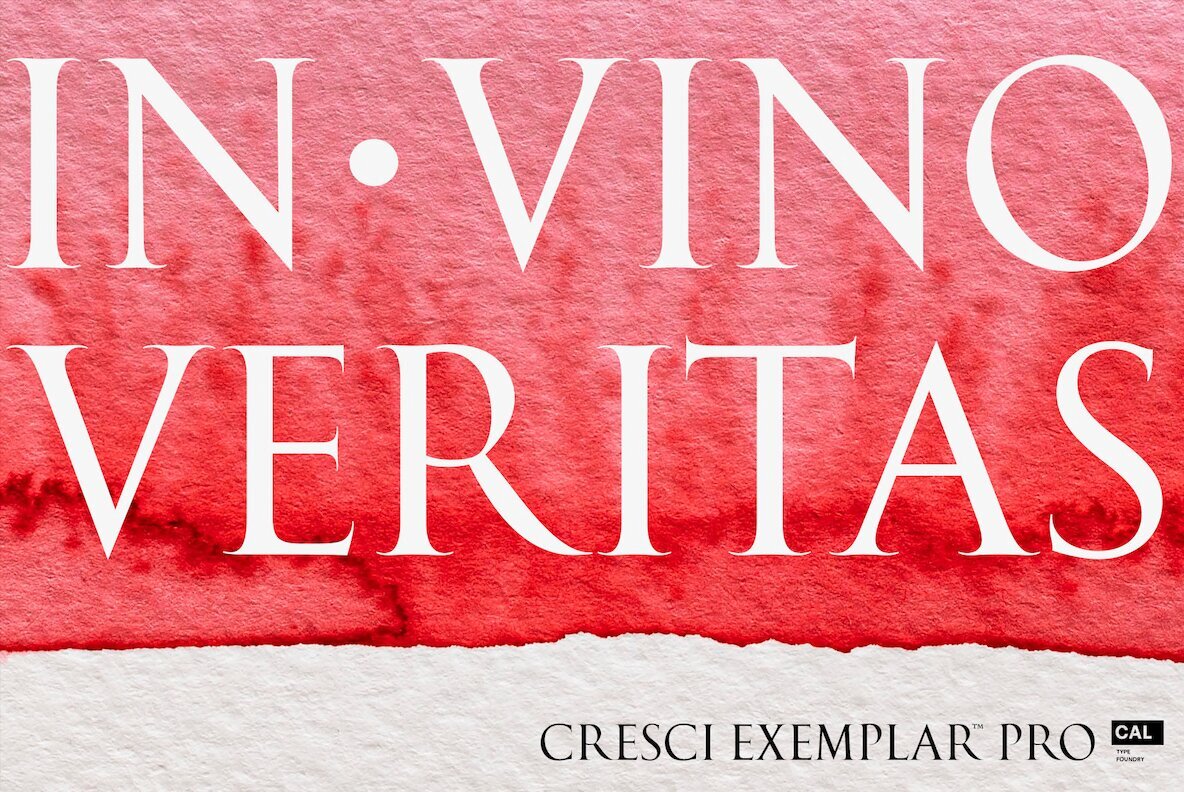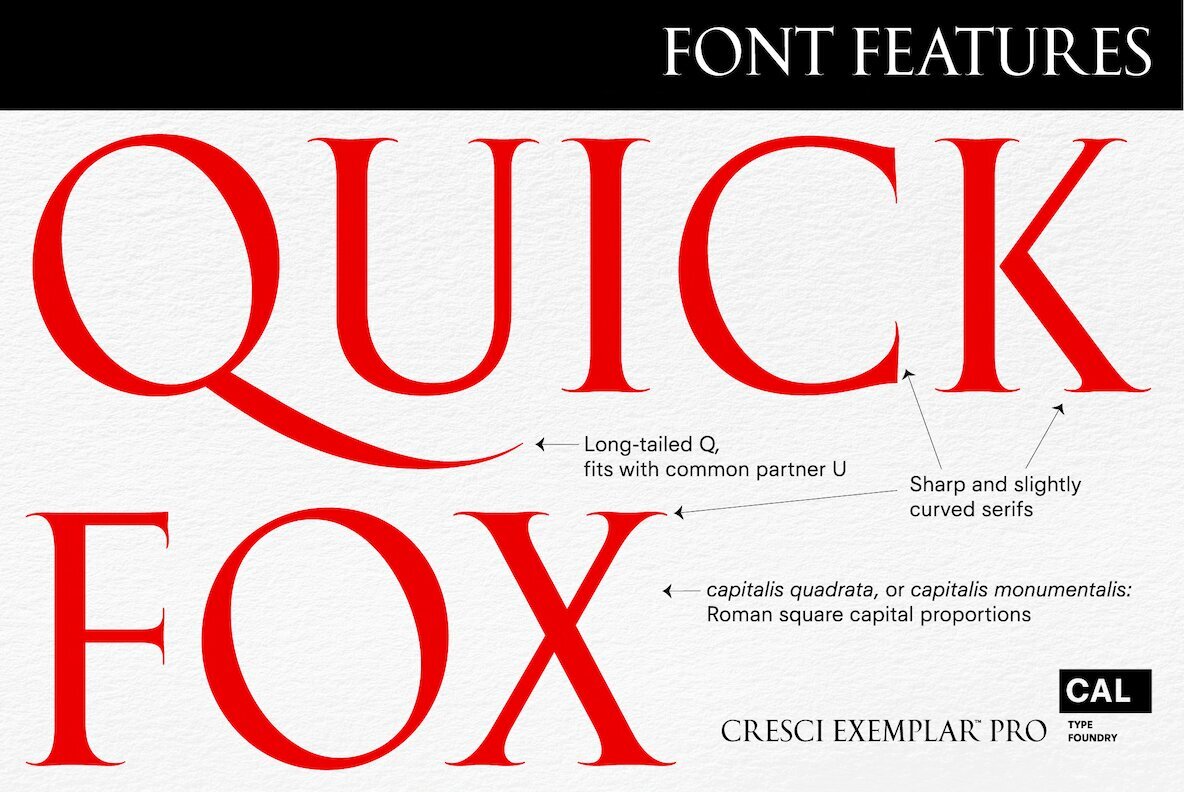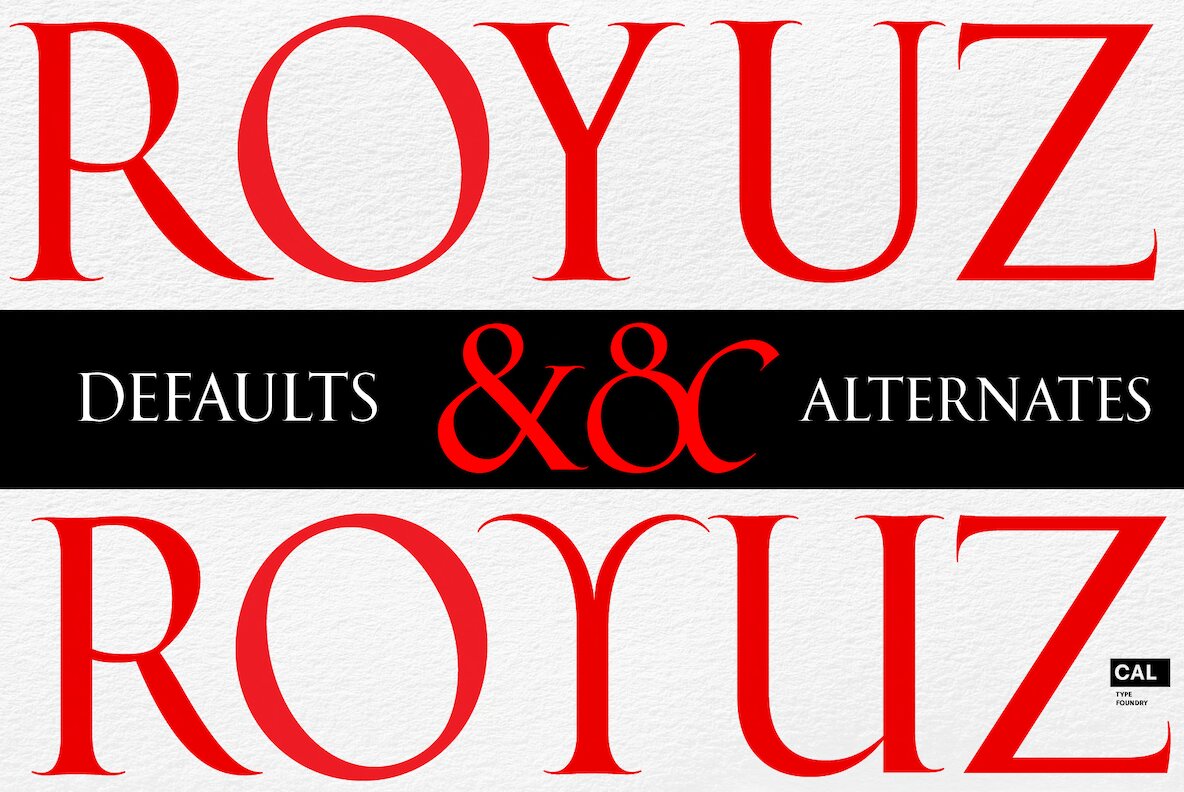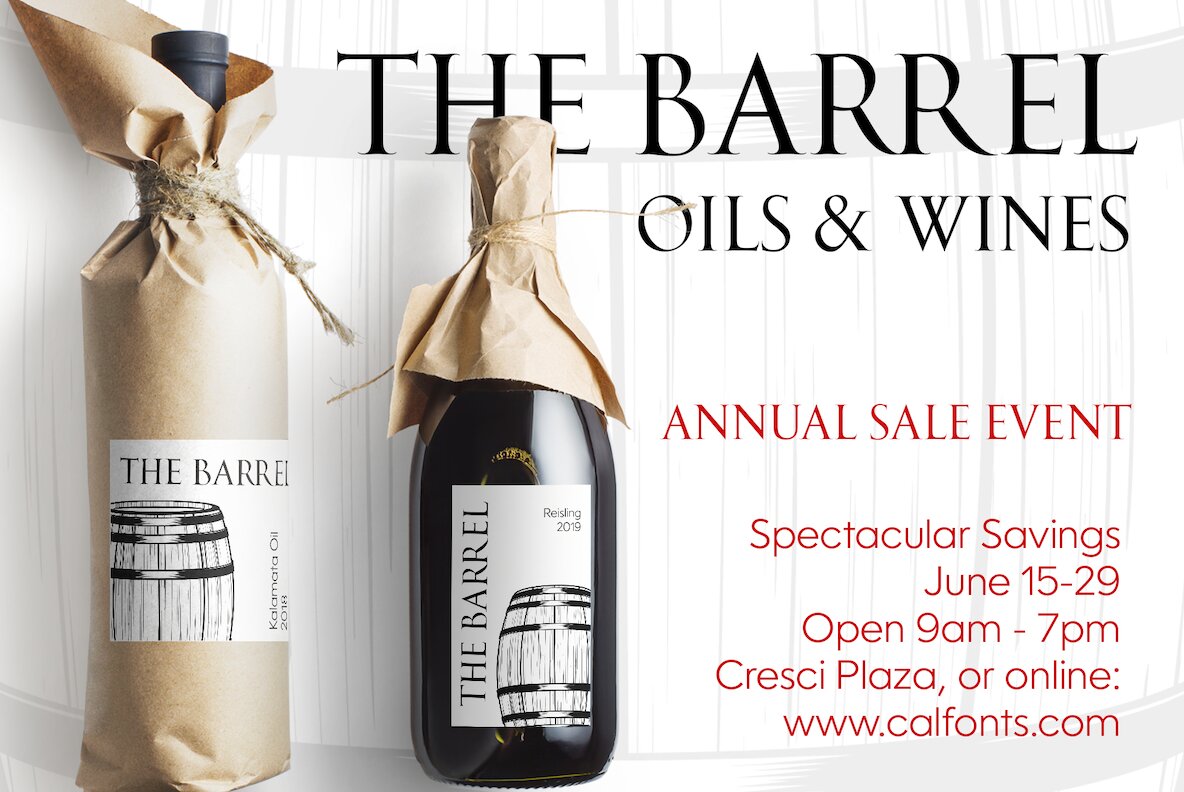
Cresci Exemplar™ Pro Font
Cresci Exemplar™ Pro was originally designed by Giovanni Francesco Cresci, the 16th century Milanese writing master. These letters from his book Essemplare are some of the most elegant capitalis monumentalis ever produced and served as a model for later inscriptions on statues and monuments all throughout Italy.
Painstakingly made from multiple high-resolution references, Cresci Exemplar™ Pro, accurately matches the master’s original lines. It can be used at large sizes without sacrificing elegance. Cresci’s attention to detail and delicate curves allow his titling capitals to stand out and elevate text.
The numbers of Cresci Exemplar™ Pro have been professionally designed to match and complement the letterforms of Cresci’s original alphabet. Symbols have either been faithfully transcribed or thoughtfully designed both to be pleasing to today’s reader and congruent with classic lines.
Released for the 450th anniversary of Cresci’s Il Perfetto Scrittore.